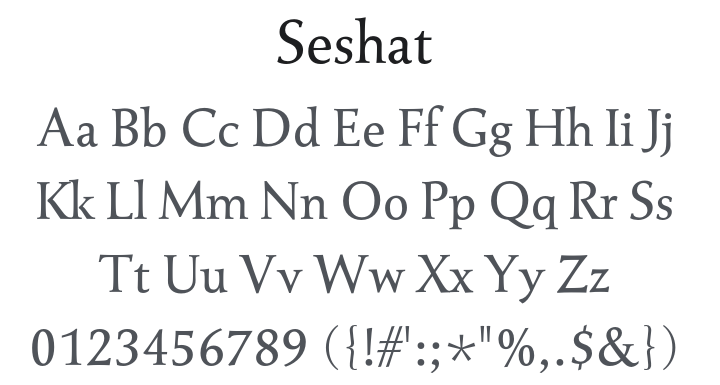
Seshat Font
About Seshat
Seshat is a Roman typeface designed for body text.
Drawing inspiration from classical proportions, it introduces a distinctive touch by omitting certain serifs on characters such as "A" and "n".
Additionally, the main vertical strokes feature varying line weights—reminiscent of Optima—to create a design with greater visual contrast.